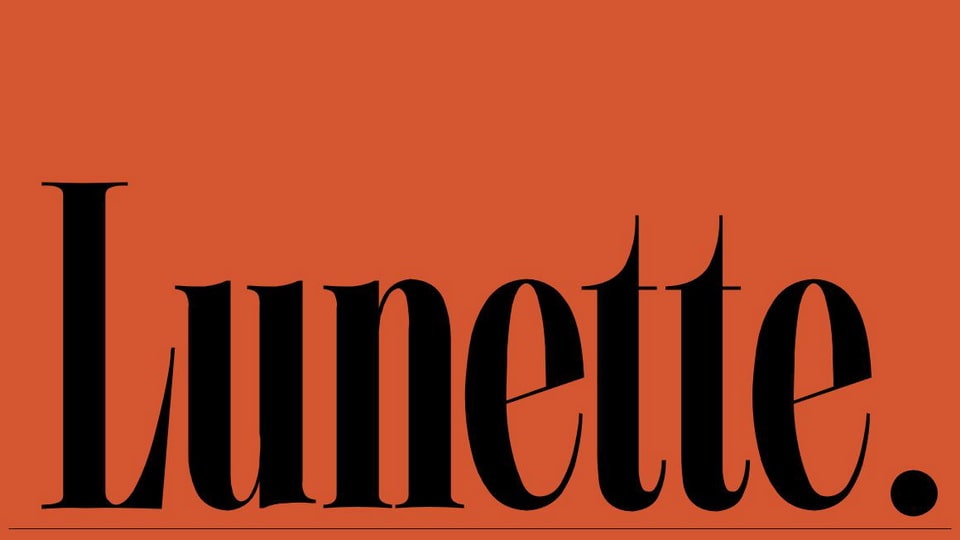
Download Lunette font, a strong and classy serif typeface with an elegant touch. It’s a unique modern font that a mixes of old and new serif styles.
Designer: Reyrey Blue